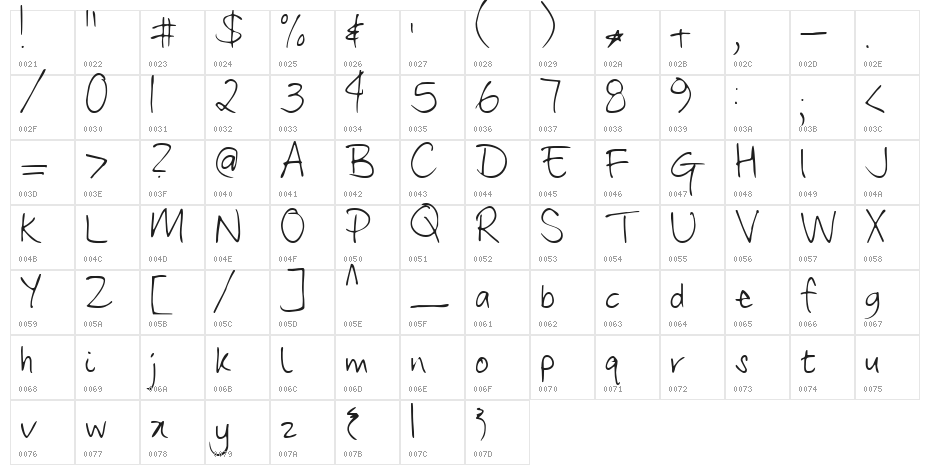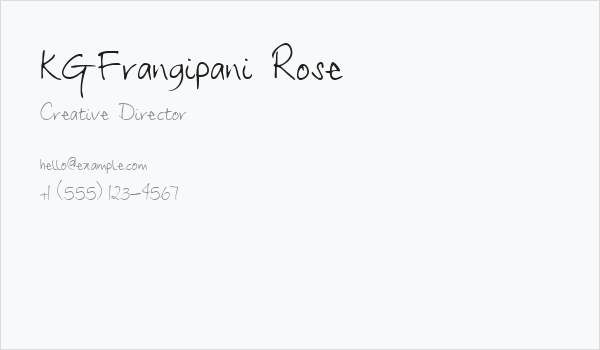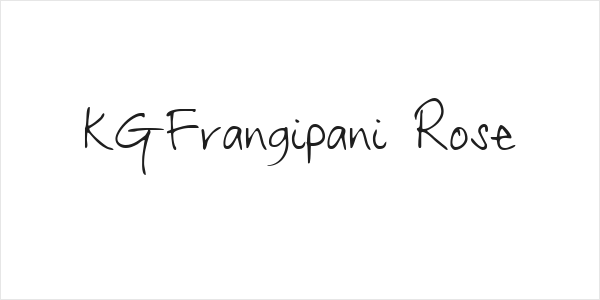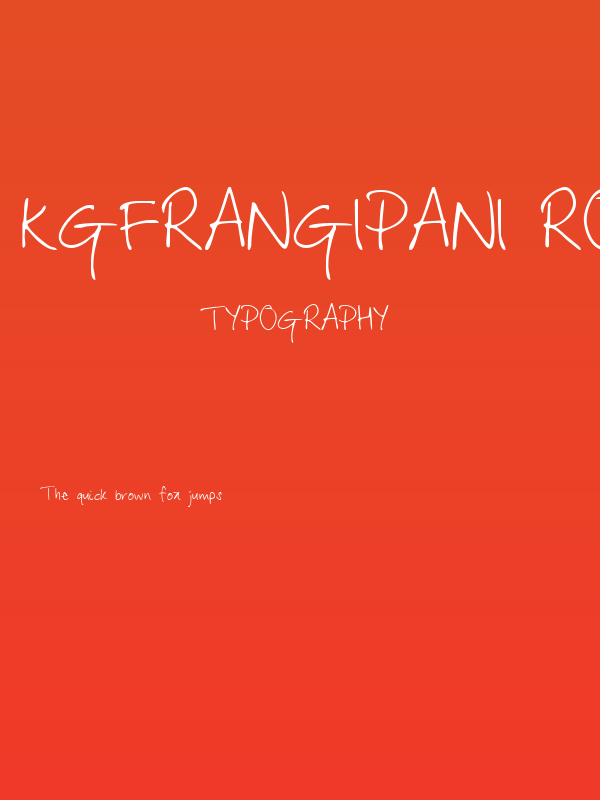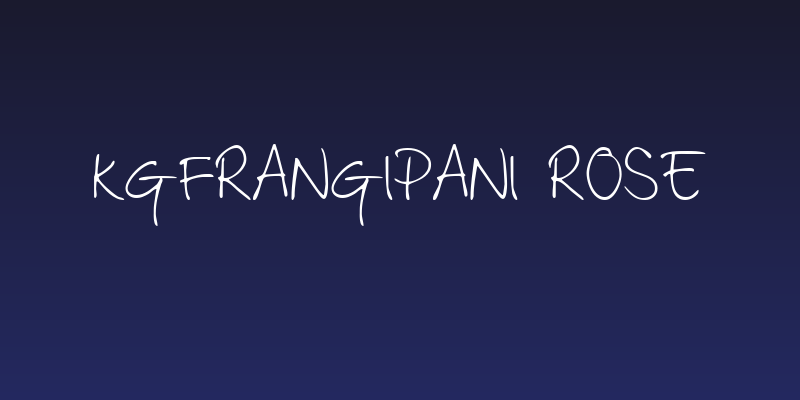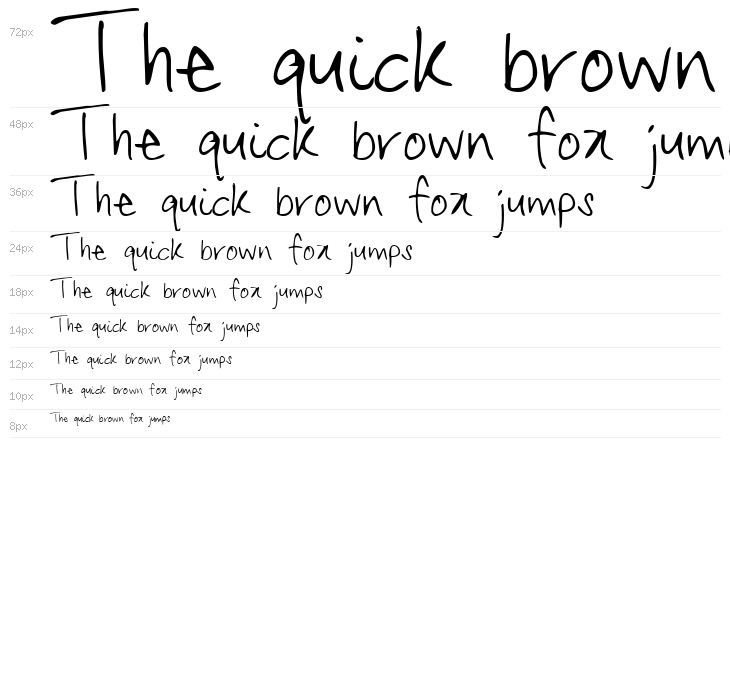
KGFrangipani Rose Font
KGFrangipani Rose Description
This font features a playful and casual handwritten style, characterized by its fluid and organic strokes. The letters have a natural flow, with varying line thickness that adds a dynamic and lively feel. The uppercase and lowercase letters maintain a consistent style, with rounded edges and a slightly irregular baseline, enhancing its informal appearance. The numerals and special characters follow the same aesthetic, making it versatile for creative projects. Its overall look is approachable and friendly, suitable for designs that aim to convey warmth and personality.
| Proposed Projects | Ideal for greeting cards, invitations, personal branding, and creative projects that require a warm and friendly touch. |